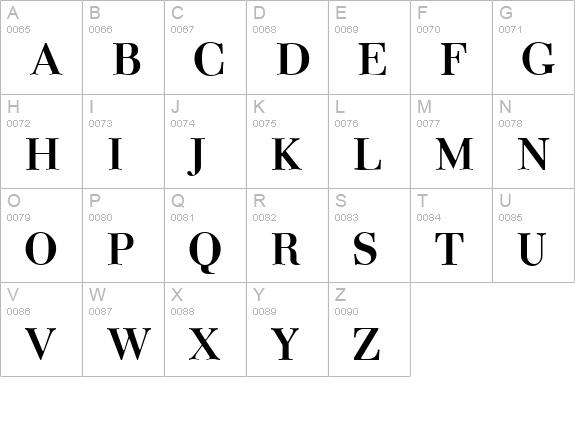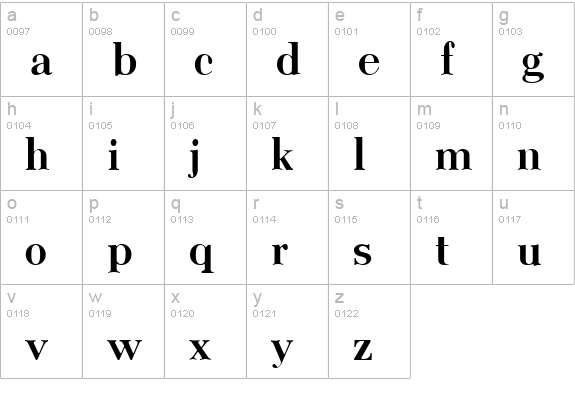
Camelia Bold Font Details
Camelia Bold is a strong, high-contrast variant in the Camelia typeface family \xE2\x80\x94 well suited to headlines, attention-grabbing titles, and strong calls-to-action.
Camelia Bold is a modern and stylish font that exudes elegance and sophistication. Its sleek lines and bold strokes make it perfect for adding a touch of class to any design project. Whether you're creating a logo, website, or print materials, Camelia Bold will make a bold statement that is sure to impress. And the best part? Camelia Bold is available for free download at FontsMarket.com. You can easily access this stunning font and elevate your designs without any cost. Don't miss out on the opportunity to enhance your projects with the beauty and versatility of Camelia Bold. Download it today and let your creativity shine!